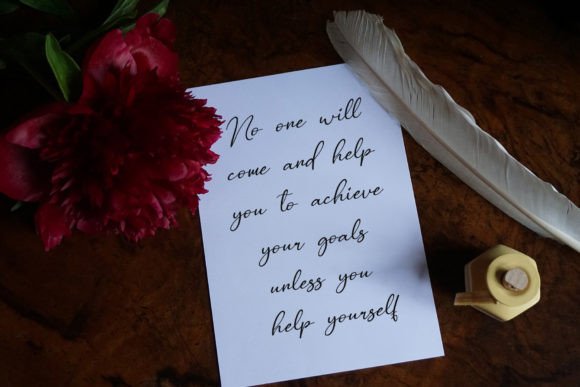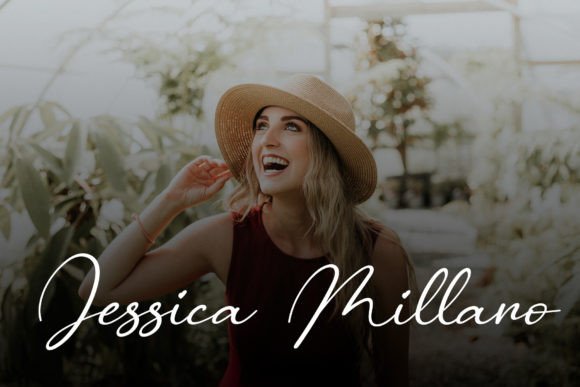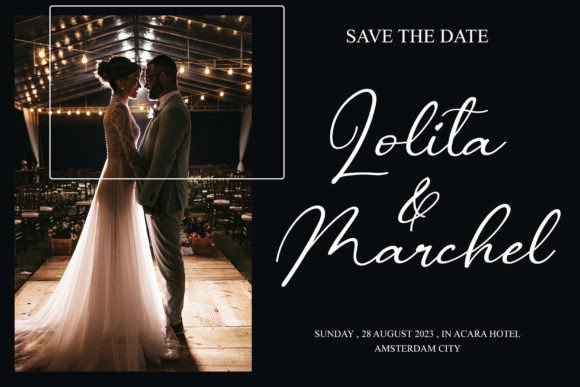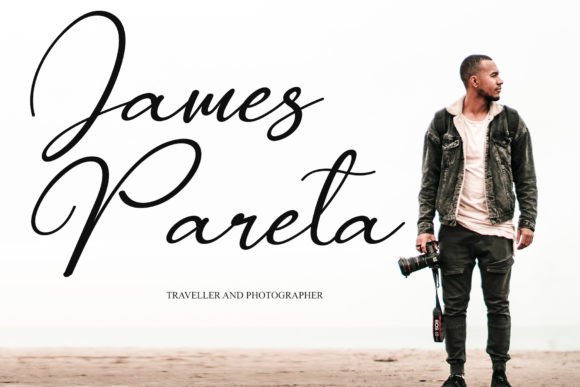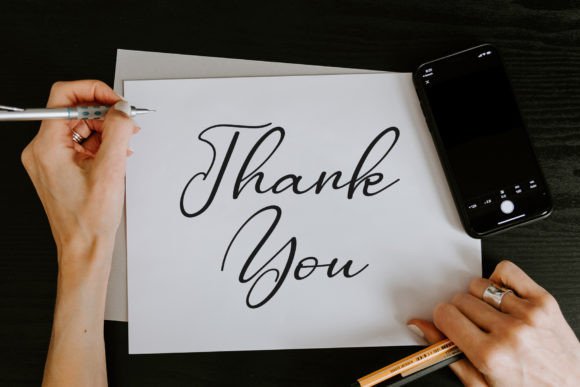
Introducing Barley Font: A Stylish and Dainty Script Font
Are you looking for a font that adds a touch of elegance and sophistication to your design projects? Look no further than Barley Font, a beautiful script font that is perfect for a variety of applications. In this article, we’ll take a closer look at the features and benefits of Barley Font, and explore how it can be used to elevate your designs.
What is Barley Font?
Barley Font is a stylish and dainty script font that is designed to add a touch of luxury and refinement to your designs. With its delicate lines and elegant curves, this font is perfect for creating beautiful and sophisticated text-based designs. Whether you’re working on a logo, branding project, label, or any other type of design that requires a script font, Barley Font is an excellent choice.
Key Features of Barley Font
So, what makes Barley Font so special? Here are just a few of its key features:
- PUA Encoded: Barley Font is PUA encoded, which means that you can access all of the glyphs and swashes with ease. This makes it easy to customize your text and add unique touches to your designs.
- Stylish and Dainty: Barley Font has a delicate and elegant appearance that is perfect for creating sophisticated text-based designs.
- Versatile: This font is suitable for a wide range of applications, including logos, branding projects, labels, photography, watermarks, and more.
Benefits of Using Barley Font
So, why should you choose Barley Font for your design projects? Here are just a few of the benefits of using this beautiful script font:
- Adds Elegance and Sophistication: Barley Font adds a touch of luxury and refinement to your designs, making it perfect for high-end branding and marketing materials.
- Versatile: This font can be used for a wide range of applications, from logos and branding projects to labels and photography.
How to Use Barley Font
- Choose the Right Size: Barley Font looks best when used at larger sizes, such as 24 points or more. This allows the delicate lines and curves to shine through.
- Experiment with Swashes: With its PUA encoding, Barley Font comes with a range of swashes and glyphs that can be used to customize your text. Experiment with different combinations to find the one that works best for your design.
- Pair with Other Fonts: Barley Font can be paired with other fonts to create a unique and interesting design. Try pairing it with a bold sans-serif font for a striking contrast.
Barley Font is perfect for designers and crafters who are looking for a beautiful and elegant script font to add to their toolkit. Whether you’re working on a client project or creating something for your own brand, this font is sure to impress. With its versatility and ease of use, Barley Font is a great choice for anyone who wants to add a touch of sophistication and luxury to their designs.